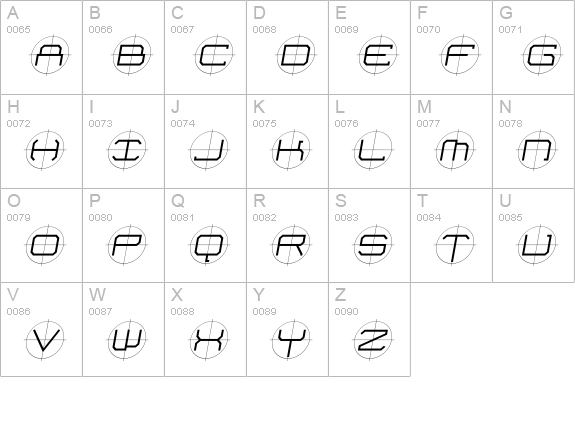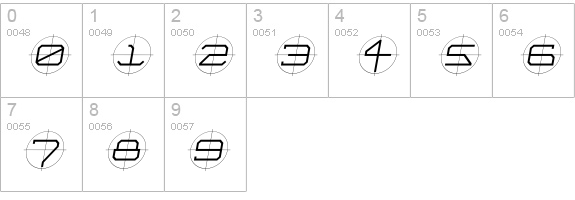
FutureKill-LightSkew Font Details
FutureKill-LightSkew font is a modern and edgy typeface that exudes a futuristic and dynamic vibe. Its sleek and sharp design makes it perfect for creating eye-catching headlines, posters, and digital designs. The unique skewing effect adds a touch of creativity and innovation to any project. The best part? FutureKill-LightSkew font is available for free download at FontsMarket.com! This means you can easily add this striking font to your collection without any cost. Whether you're a designer looking to spice up your work or a creative individual wanting to stand out, FutureKill-LightSkew font is a versatile choice that will surely make a statement. Download it now and unleash your creativity!